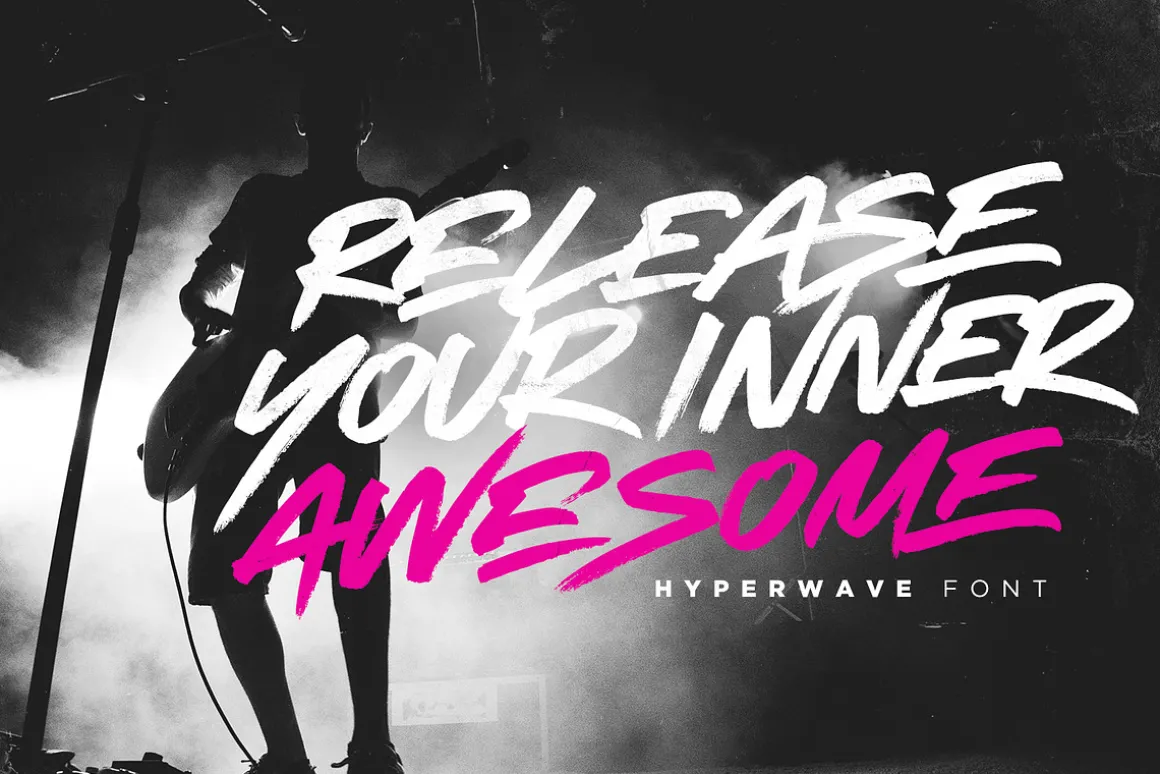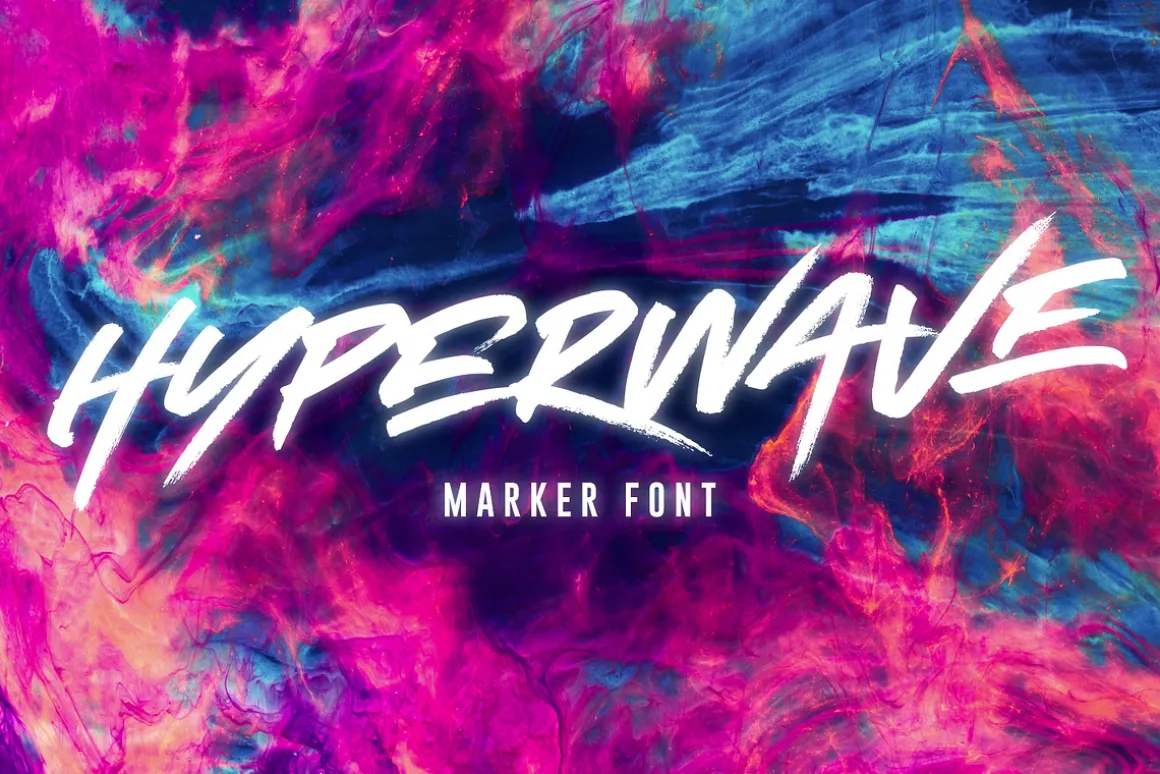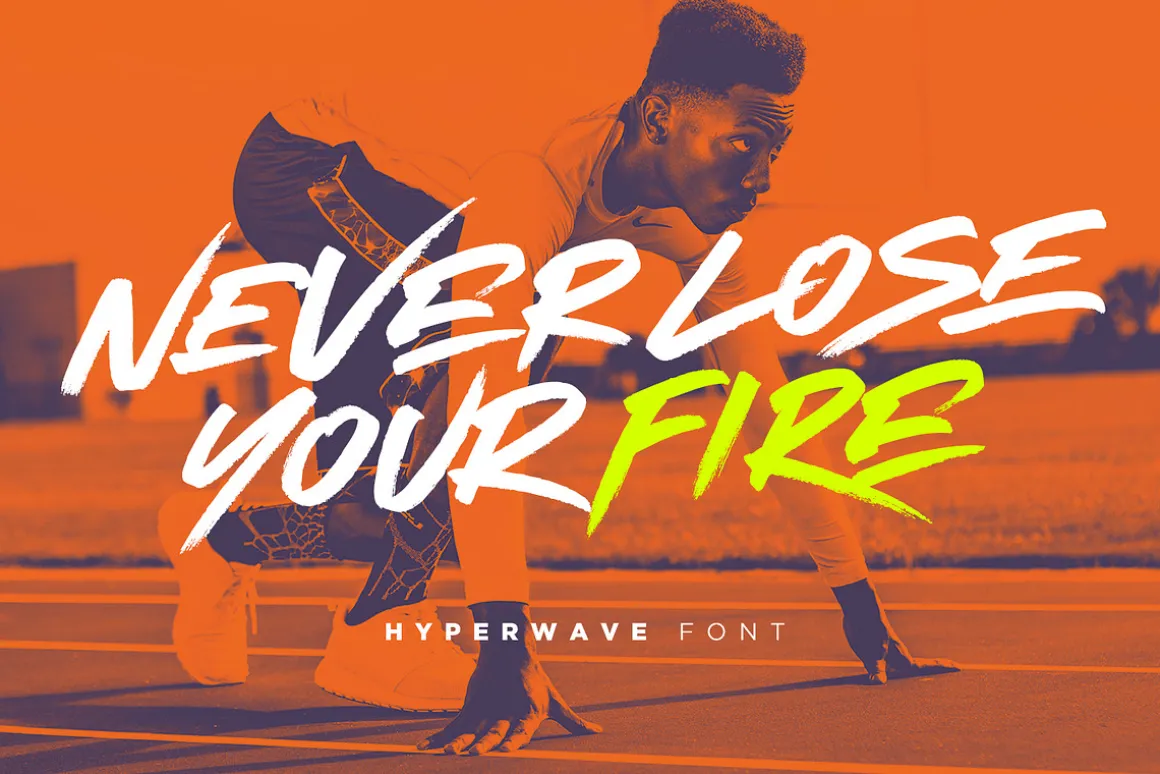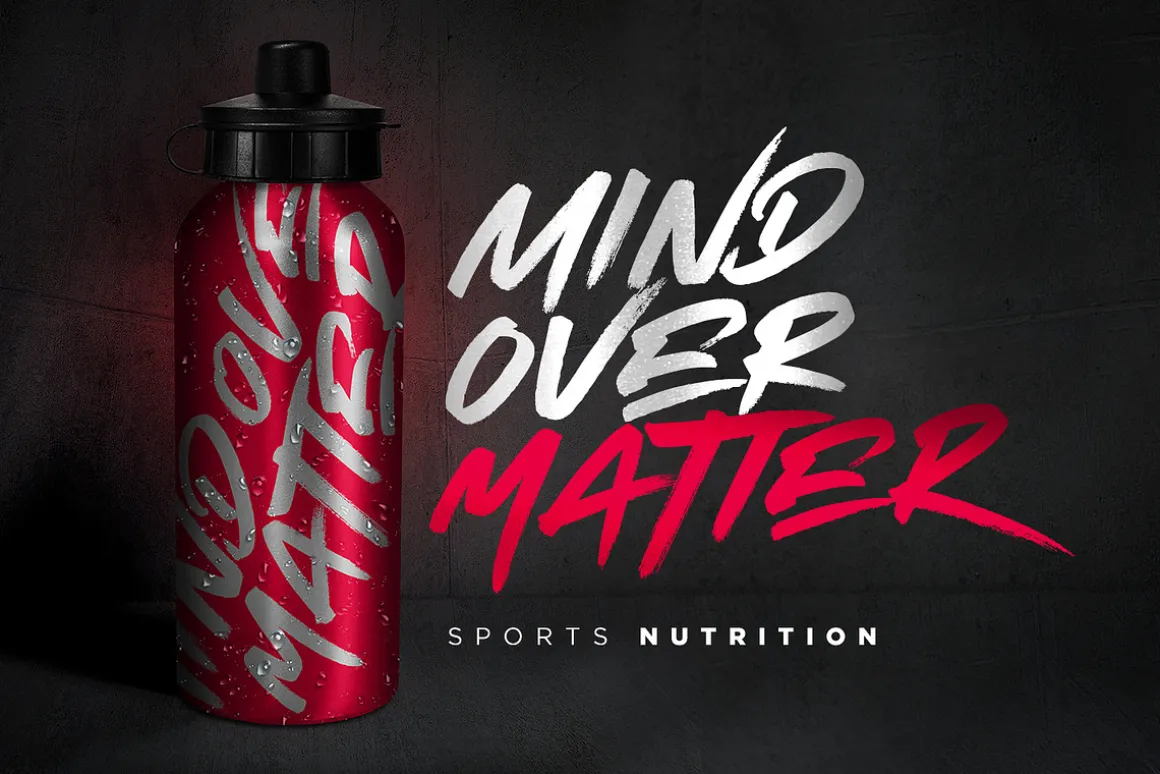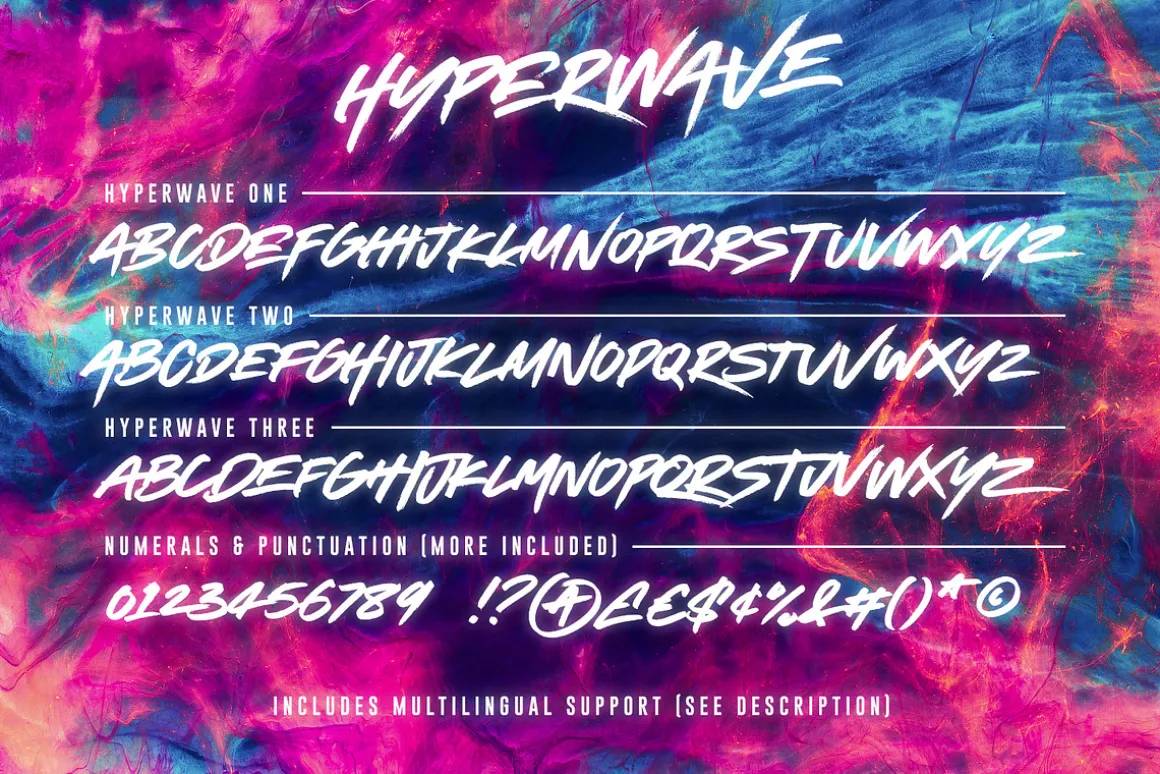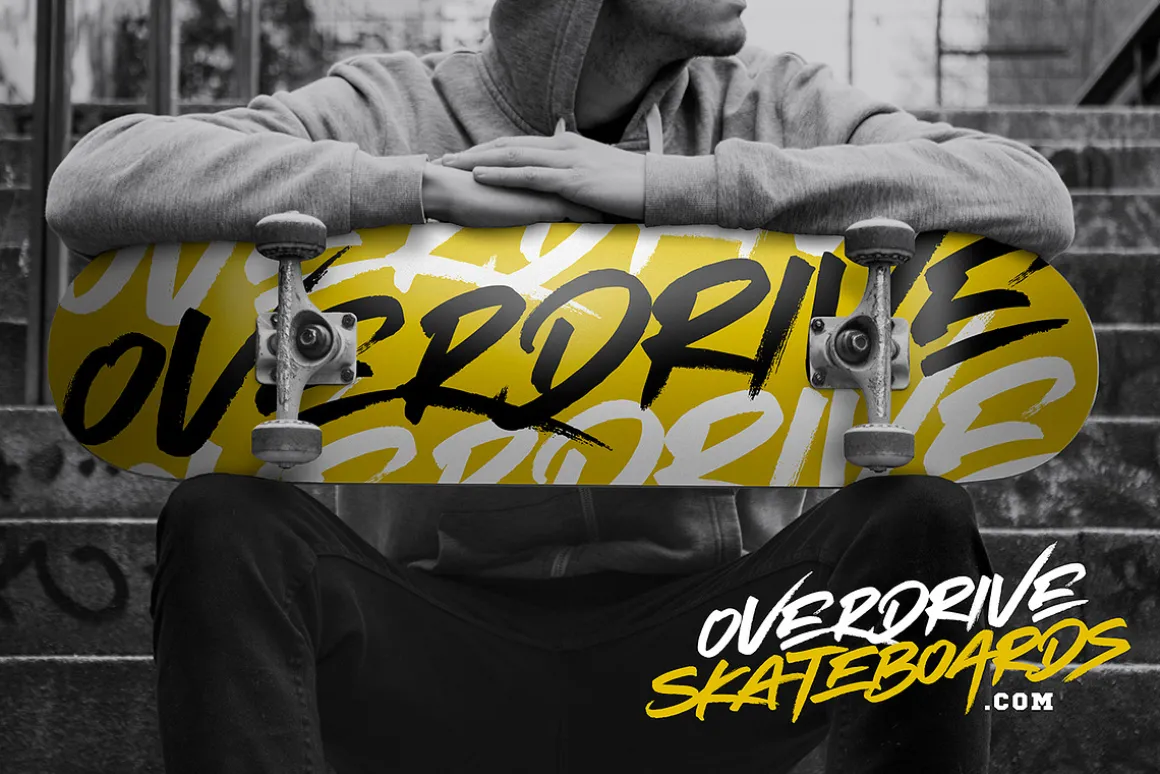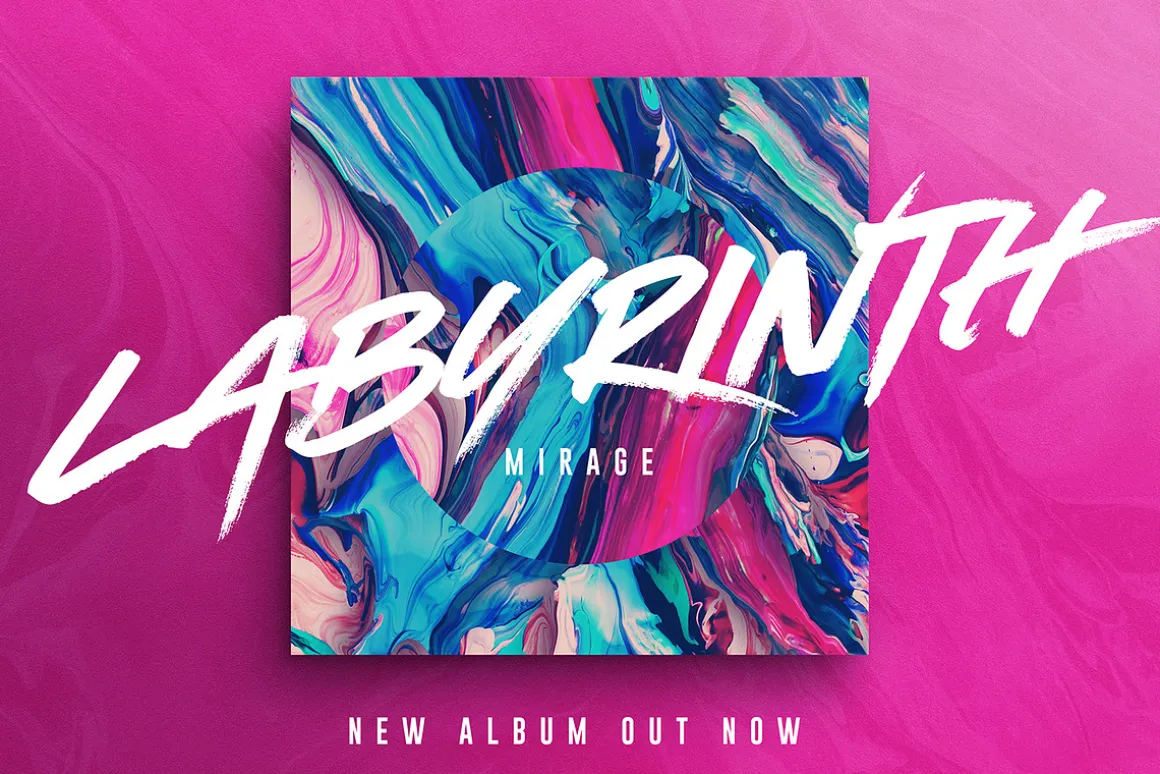
Crank up the intensity with HYPERWAVE! An energetic set of brush fonts with a sharp attitude.
With THREE sets of each letter, each equipped with distinctive fast brush strokes, HYPERWAVE is ready and raring to make a big statement on your logo designs, brand imagery, handwritten quotes, product packaging, merchandise, music projects & social media posts.
1. Hyperwave One • A handmade marker pen font containing uppercase characters only, numerals and a large range of punctuation.
2. Hyperwave Two • This is a second version of Hyperwave, with a completely new set of uppercase characters. If you wanted to avoid letters looking the same each time to recreate a custom-made style, or try a different word shape, simply switch to this font for an additional layout option.
3. Hyperwave Three • You guessed it; a third version of Hyperwave, with another completely new set of uppercase characters – giving you even MORE layout options for your text.